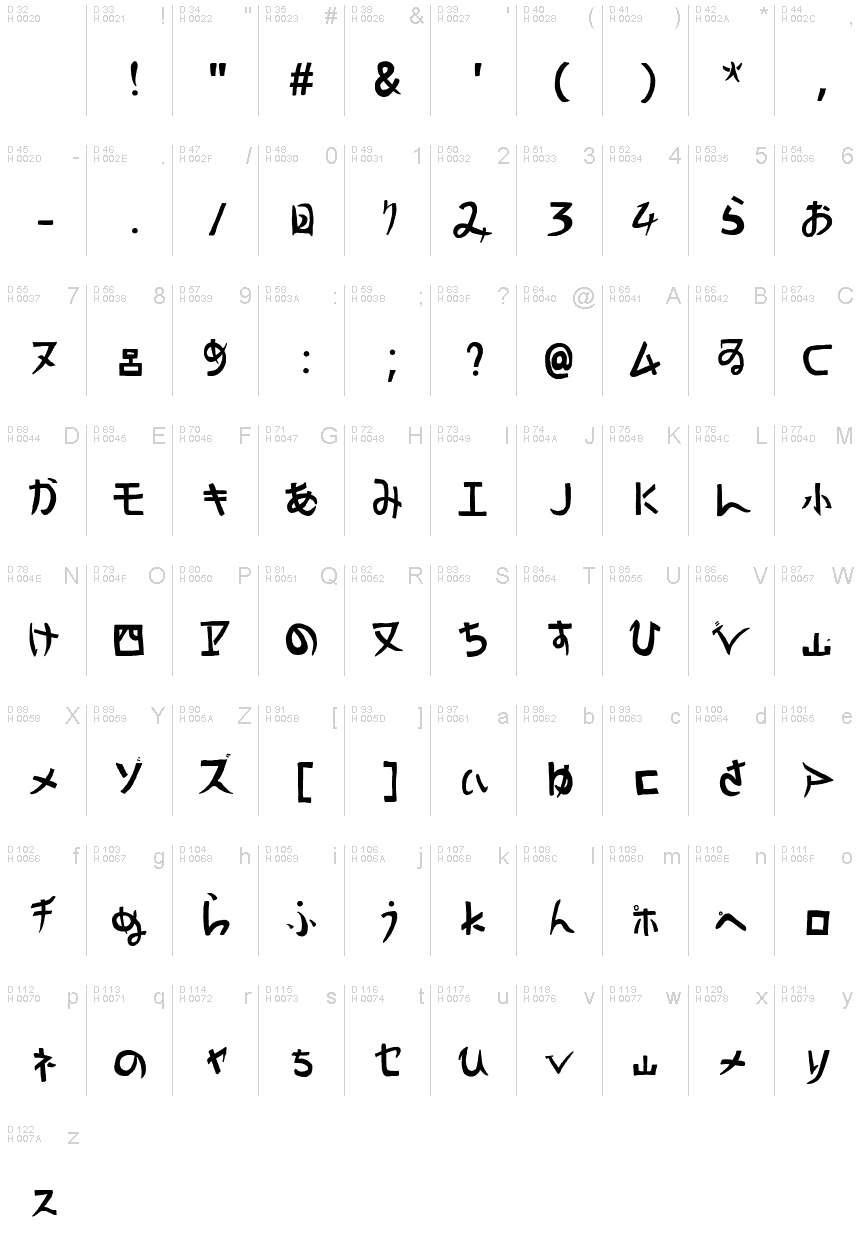
Unseen, a masterpiece crafted by the talented Fhammadiq std, is a font that exudes an air of mystique and sophistication. With its Japanese style, Unseen bridges the gap between tradition and contemporary design aesthetics. The characters are designed with a fluidity that suggests motion, making them both dynamic and enigmatic.
The aesthetic appeal of Unseen lies in its harmonious balance between elegance and edginess. Its foreign type classification hints at an international flair that is versatile enough for various creative projects. Whether it's for branding, artistic compositions, or digital interfaces, Unseen's distinct style offers endless possibilities for designers seeking to infuse their work with a touch of the avant-garde.